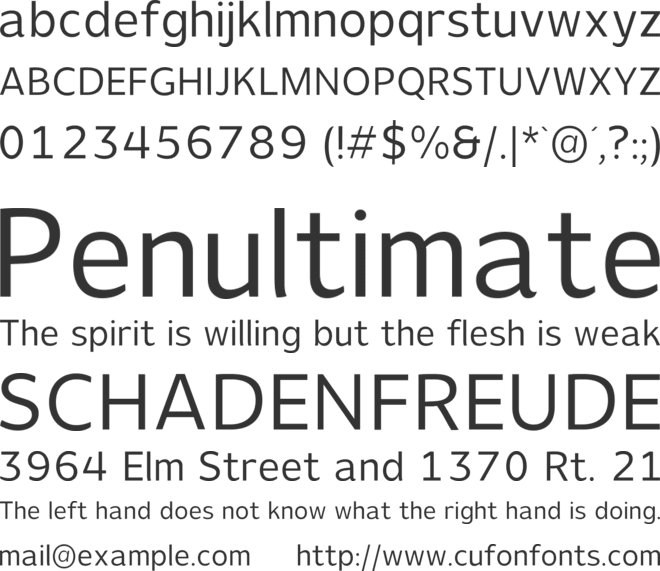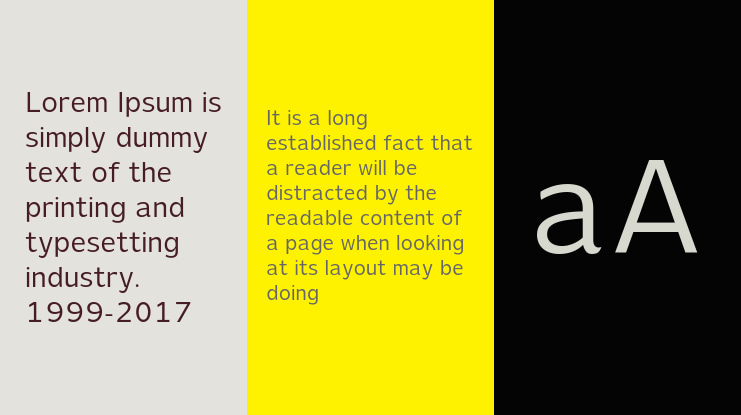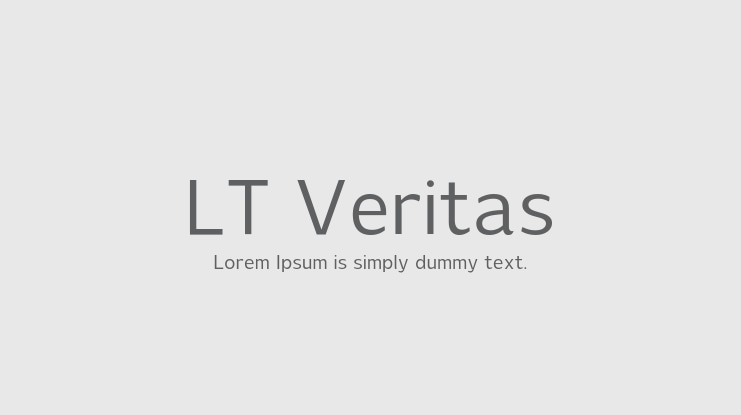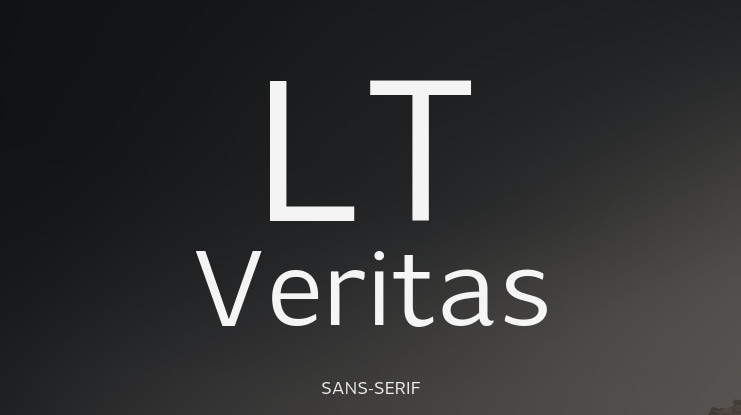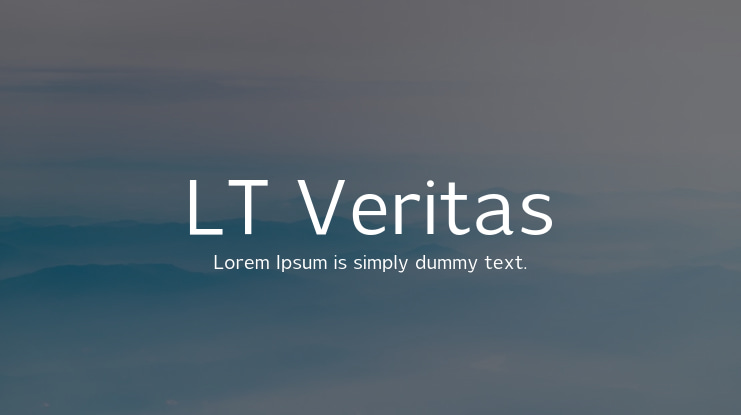
LT Veritas is a typeface inspired by an AI-generated image, leading to consistent and precise lettering. This typeface is notable for maintaining a uniform style, presenting flawless letterforms without any imperfections. LT Veritas is distinguished by its smooth and dependable execution, making it a visually appealing and reliable choice for various design applications.